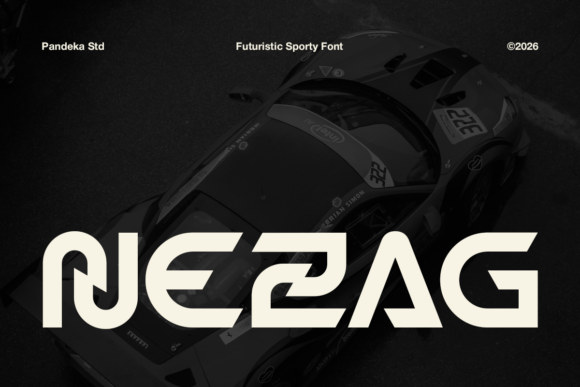
Nezag: A High-Speed Display Font for Handmade Designs
Every once in a while, a typeface lands in my font library and immediately sparks a half dozen project ideas before I even install it. That was my experience with Nezag. This is not a quiet, blend-into-the-background font. It’s a futuristic sport font built from sharp geometric shapes, unexpected dynamic angles, and pure high-speed visual energy. If you’ve ever struggled to find lettering that feels fast, modern, and unapologetically bold for your handmade products, this one is worth a very close look.
What I noticed first was the tension in each letterform. Strokes slice forward at interesting angles, terminals feel engineered rather than drawn, and the overall rhythm of the alphabet suggests motion even when you’re reading a single word. It calls to mind racing typography, esports branding, and tech-forward packaging, yet it’s versatile enough to work across a surprising range of craft projects. For a printable creator or small shop owner, a display font like Nezag can become the visual anchor that makes a product feel intentional, exciting, and completely different from the sea of script fonts and soft serifs that dominate handmade marketplaces.
The Visual Personality That Sets Nezag Apart
When I test a new display typeface for my product line, I look for personality that photographs well and reads clearly in mockup previews. Nezag delivers on both counts. The sharp geometric construction gives it a technical, almost aerospace feel, while the slanted cuts and letter width variations inject a raw racing-inspired attitude. It doesn’t feel childish or gimmicky; it feels precise and confident. That matters when you’re selling physical goods. Customers pick up on those subtle cues instantly, even if they can’t name the font.
Modern crisp letterforms like these photograph beautifully on flat-lays for candle tins, bath salt jars, or screen-printed tote bags. The high contrast and stark angles hold up under product lighting and translate reliably to cut files. For Etsy sellers building a cohesive shop aesthetic, a typeface this distinctive can become a quiet brand signature—repeated on hang tags, care cards, and outer packaging so customers recognize your parcels before they even open them.
Craft Applications Where Nezag Truly Shines
Because Nezag is a display font at heart, it thrives on short, impactful text. Think names, titles, dates, punchy taglines, or single-word focal points. I’ve already bookmarked it for these upcoming seasonal and everyday product ideas:
- Birthday party invitations and decor: A child’s race car or monster truck party becomes ten times more polished with Nezag handling the child’s name and big “6” or “7” numerals on the invite, cupcake toppers, and favor bag labels.
- Sports team spirit gear: For team mom orders—squad names, player numbers on iron-on vinyl for shirts, or sideline banners—this font captures that athletic, high-speed feel without resorting to tired sport clipart.
- Wedding welcome boards and signage: Couples who are motorsport enthusiasts or who want a modern industrial edge for their reception can use Nezag on acrylic welcome signs, table numbers, and bar menu headers.
- Printable wall art: A motivational quote print with a single word like “DRIVE” or “FASTER” set in Nezag, framed in a home office or gym, reads as clean typographic art rather than another generic inspirational poster.
- Product labels for small batch makers: Hot sauce bottles, beard oil labels, coffee bag stickers—any product that wants to feel potent, handcrafted, and slightly aggressive benefits from this font’s visual edge.
- Sticker sheets and planner accents: Functional but stylish planner stickers with days of the week or goal-tracking headers in Nezag add a punchy modern twist that my bullet journal customers consistently notice.
What I’ve learned from running a small printable shop is that a font’s usefulness multiplies when it can comfortably cross categories. Nezag transitions surprisingly well from edgy teen birthday goods to sophisticated men’s grooming product packaging, simply by changing up the surrounding design elements and color palette. That flexibility makes it a wise addition to a commercial font collection.
Pairing Nezag for Readability and Emotional Range
Because Nezag is so visually commanding, it needs considered font pairings to keep your finished product readable and emotionally balanced. In my own design workflow, I never let a powerful display font carry an entire project without support. The trick is to let it dominate exactly where it should—headlines, main names, key dates—and then step aside for supporting information to be handled by something calmer.
For a wedding welcome sign, I’d set the couple’s names large in Nezag, then pair it with a clean sans serif font for the venue address and schedule details. Something like a modern geometric sans serif with neutral weight keeps the overall look high-end without fighting for attention. For a child’s birthday invitation, pairing Nezag with a bouncy handwritten font for the party description adds warmth and keeps the design from feeling coldly mechanical. On a product label, a light serif font for the ingredient list or care instructions creates a lovely tension between heritage-feel reading text and forward-moving display lettering.
In my own workshop, I’ve already penciled Nezag in for mockups of enamel camp mug decals and a limited run of high-energy baby onesie designs—the kind where “FAST AS DAD” gets center stage. I can’t wait to see how customers react to that jolt of speed printed on textured paper or vinyl. If you’re looking for a typeface that does more than just spell words—one that actually injects attitude into everything it touches—this one deserves a spot in your design assets folder.